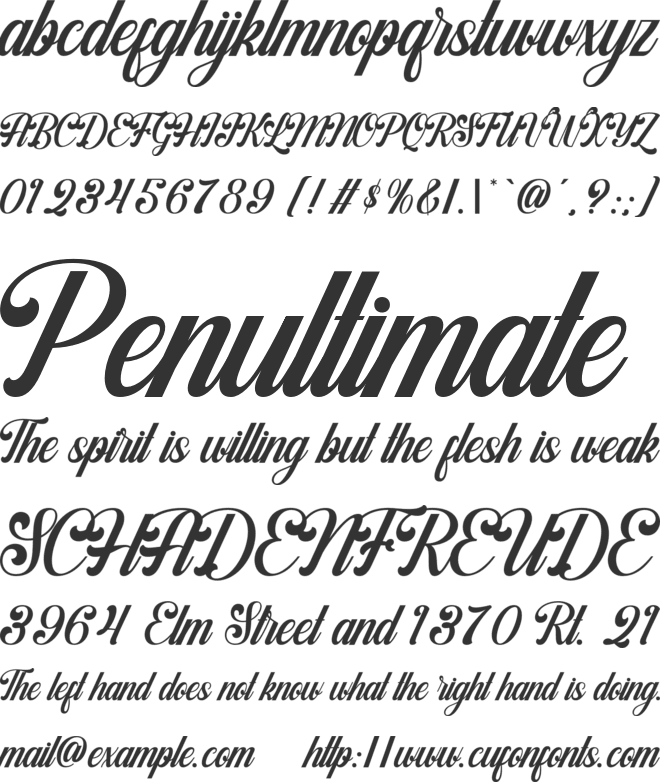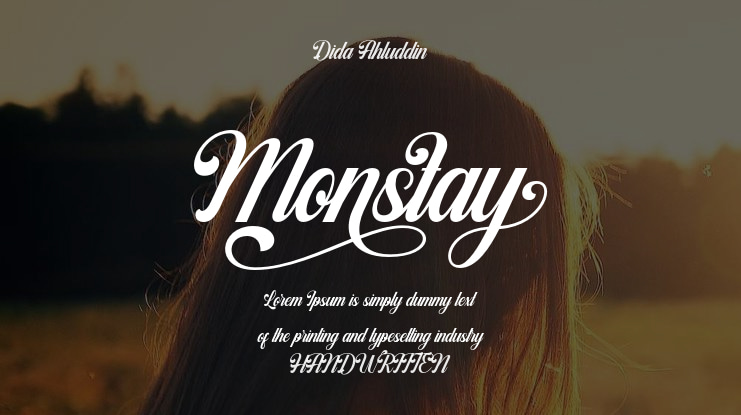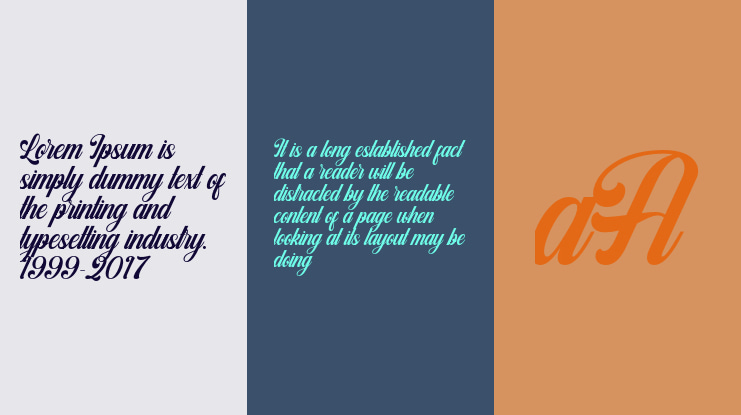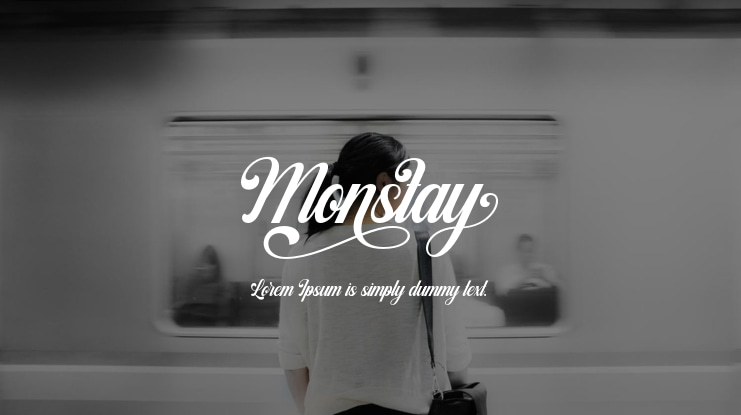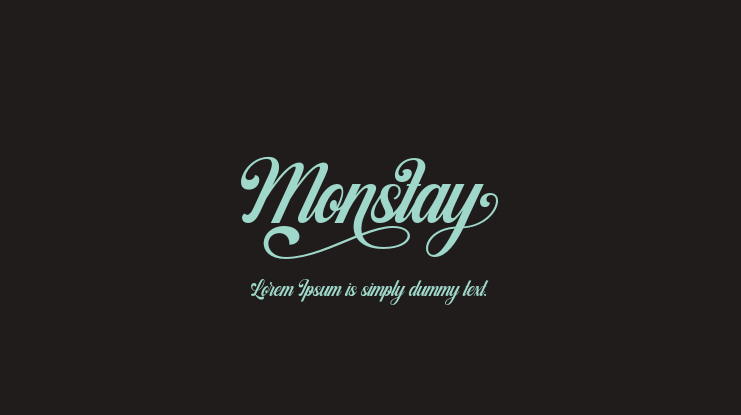
Monstay Font
Monstay is an elegant script font that embodies the artistry of calligraphy with a touch of grace. The carefully crafted letterforms are beautifully developed and intricately detailed, striking a perfect balance between elegance and luxury. This font is perfectly created to be applied especially in logos, and various other formal forms such as invitations, labels, logos, magazines, books, greeting/wedding cards, packaging, fashion, make up, stationery, novels, labels or any type of advertising purposes.